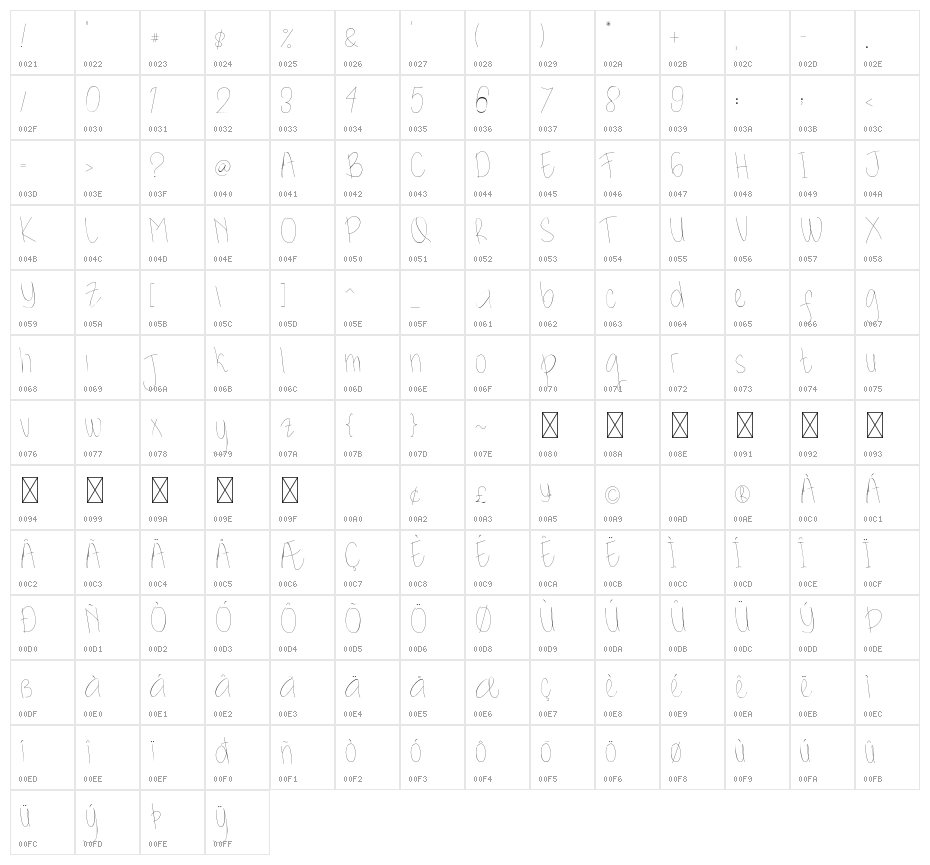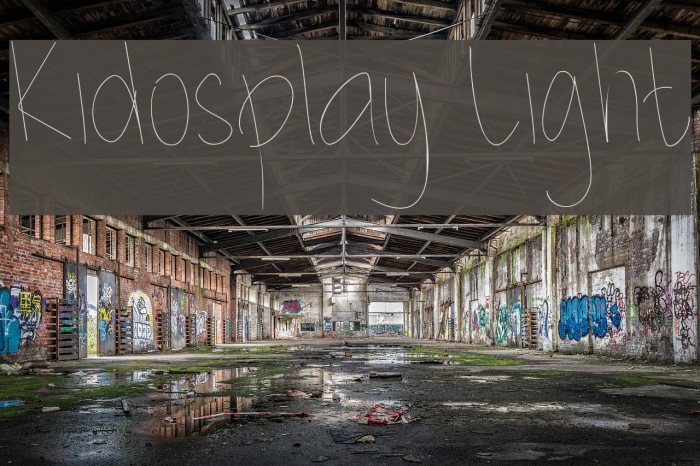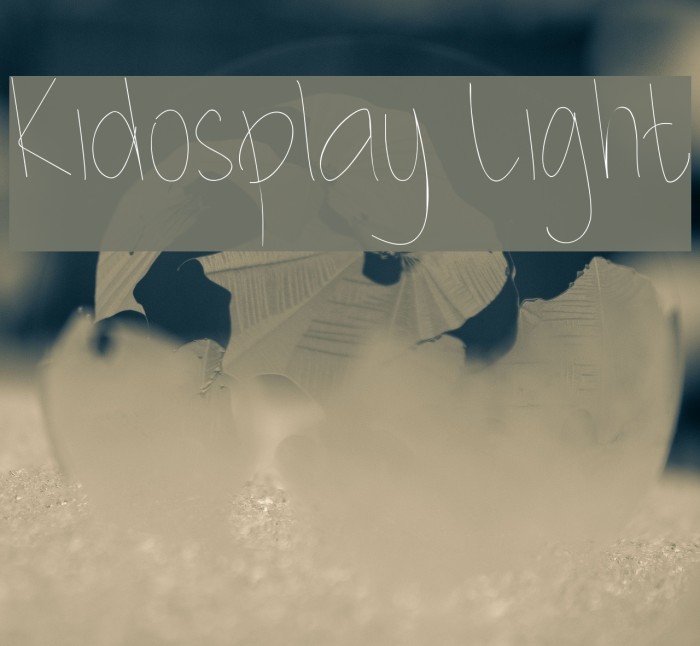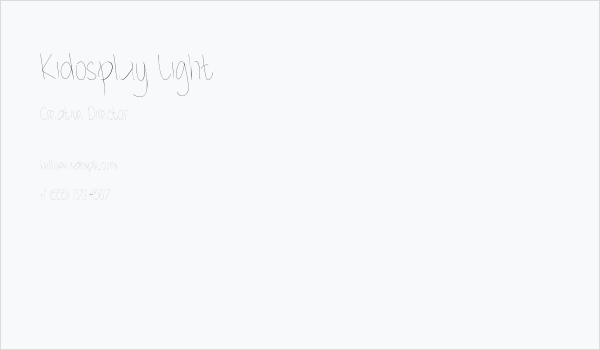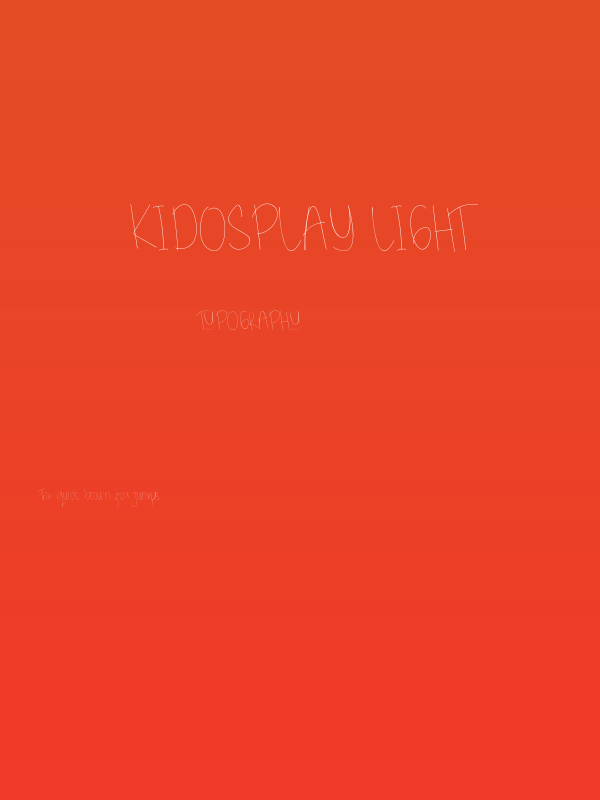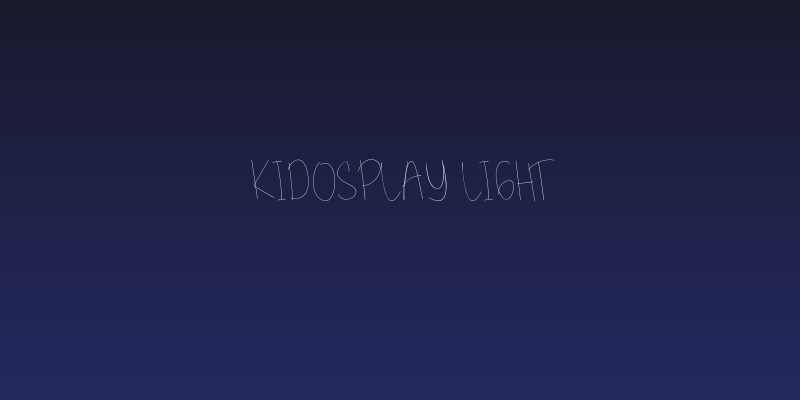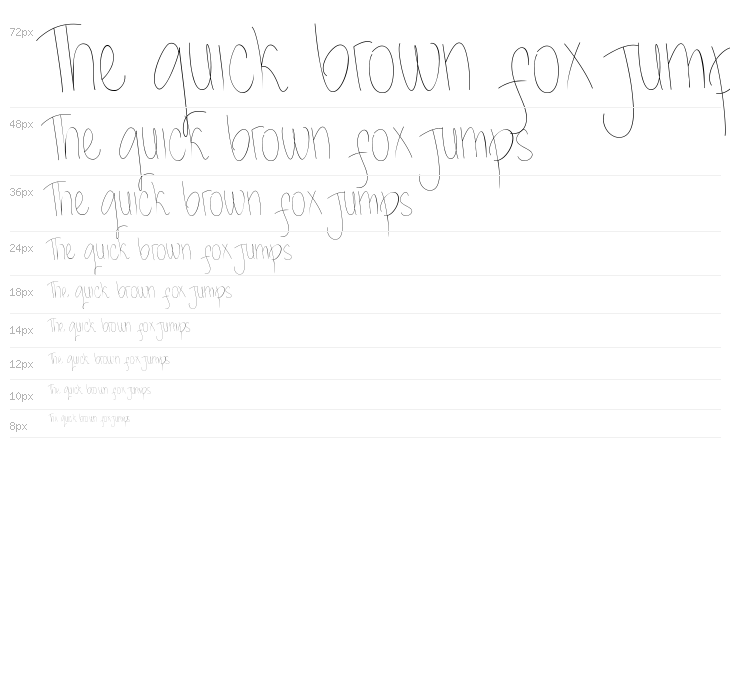
Kidosplay Light Font
Kidosplay Light Description
This font features a playful and whimsical design with tall, narrow characters that have a hand-drawn appearance. The strokes are thin and consistent, giving it a light and airy feel. The uppercase letters are slightly taller than the lowercase, and the overall style is casual yet elegant. The numerals and special characters maintain the same playful aesthetic, making it versatile for various creative projects. Its unique charm is suitable for designs that aim to convey a sense of fun and creativity.
| Proposed Projects | Ideal for children's book covers, playful branding, greeting cards, and creative posters. |